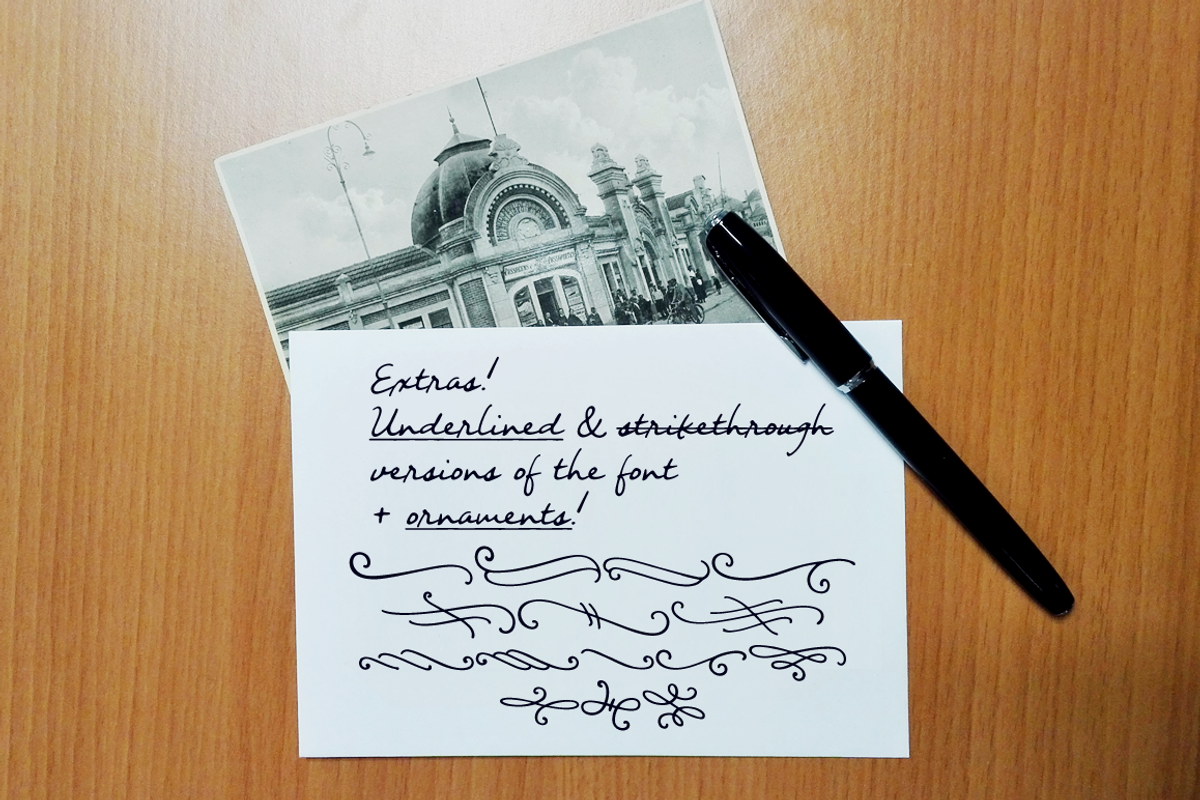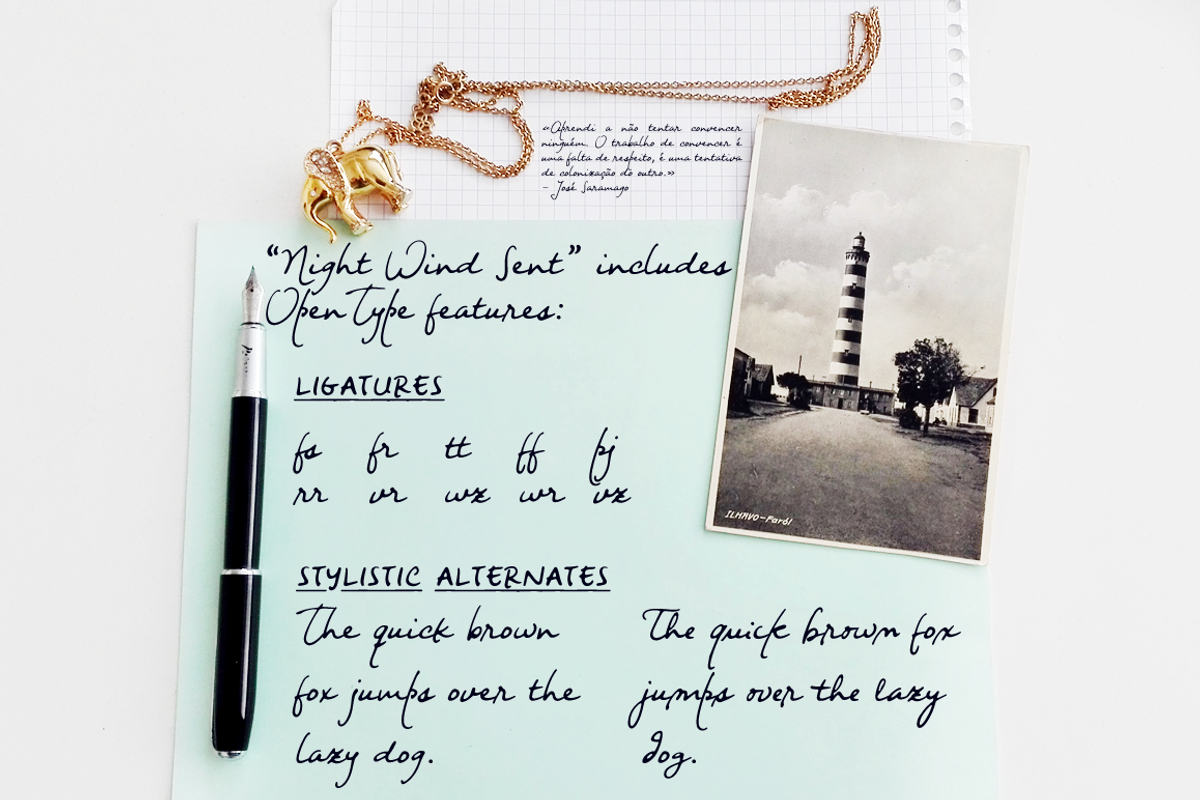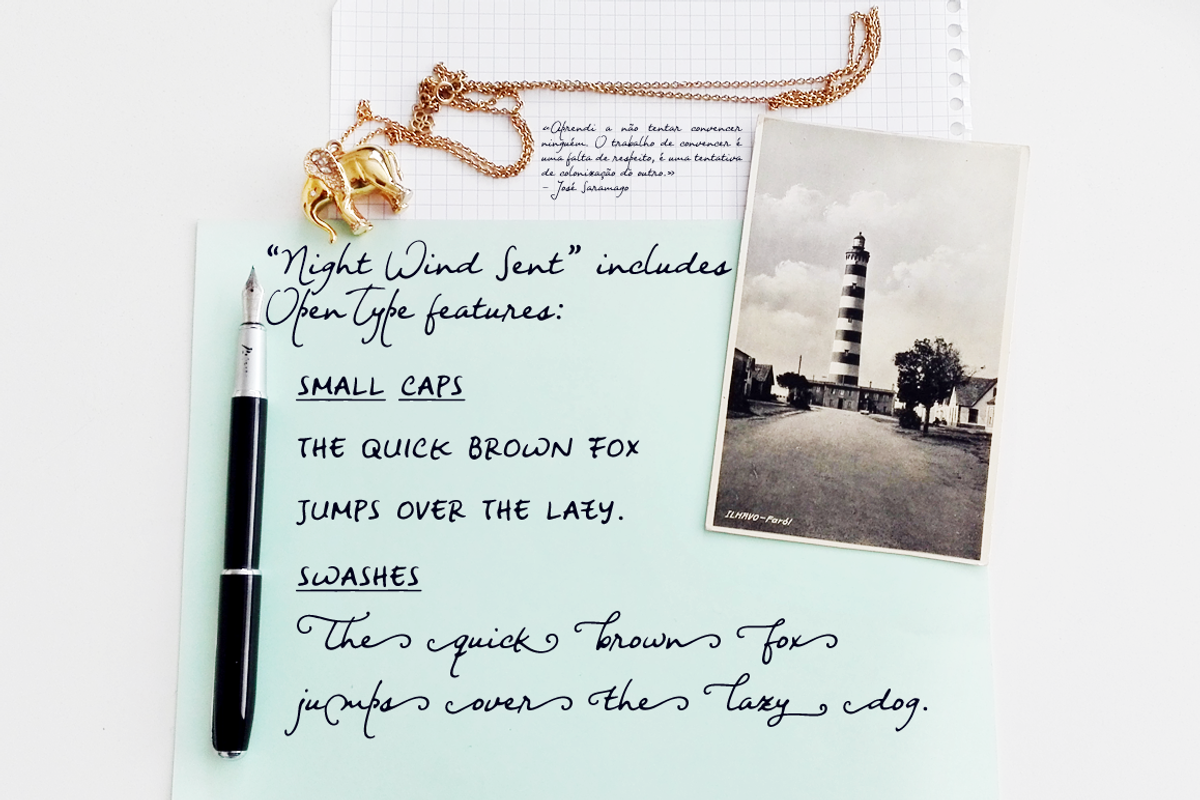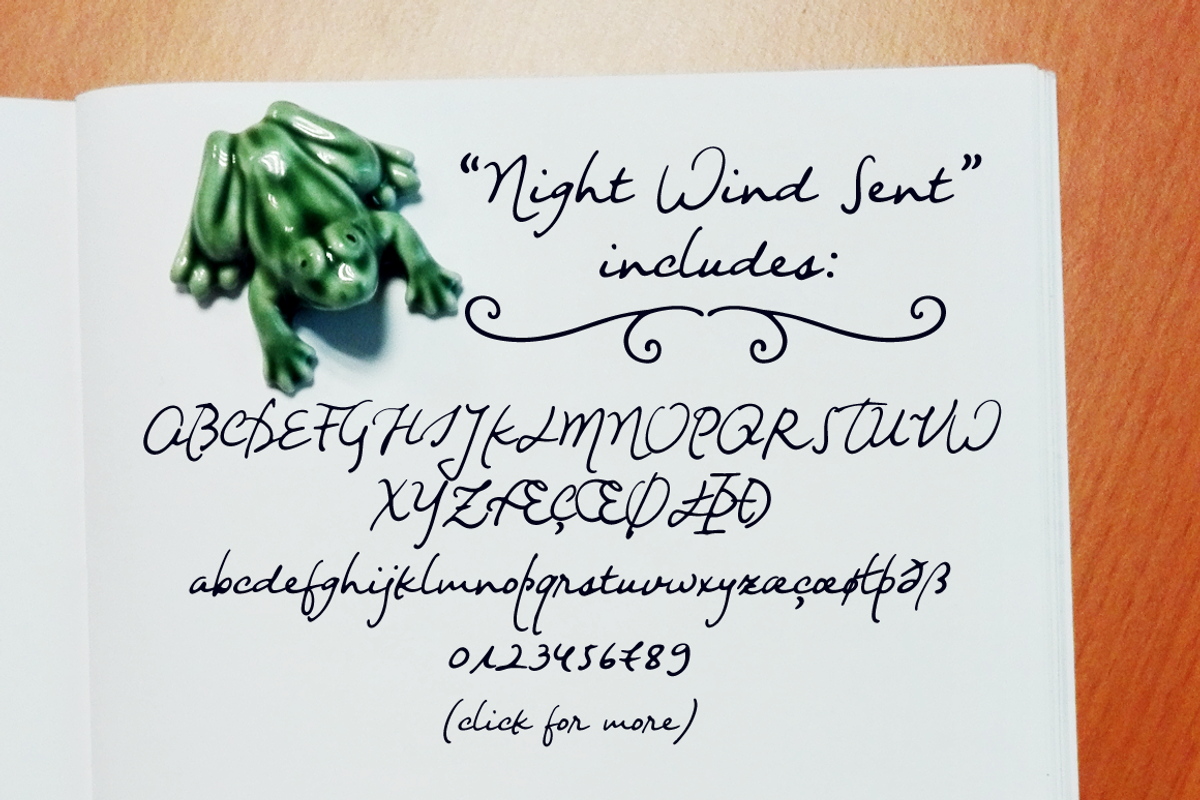
Night Wind Sent handwritten font
Night Wind Sent handwritten font by Ana's Fonts is a font selected for branding, posters, packaging, typography.
- Night Wind Sent is an elegant handwritten font, with: A-Z, a-z, 0-9, accents punctuation and symbols Ligatures Stylistic Alternates Small Ca
Why Night Wind Sent handwritten font is worth a look
Night Wind Sent handwritten font by Ana's Fonts fits naturally into Branding, posters, packaging, typography.